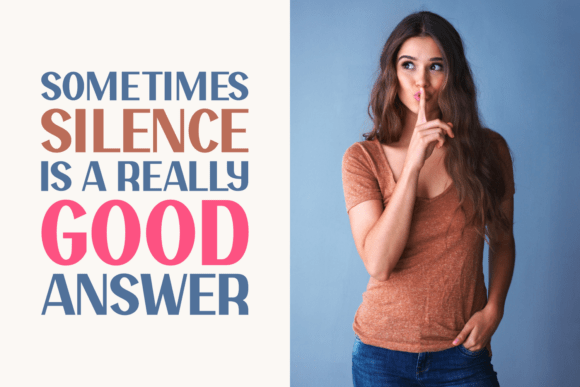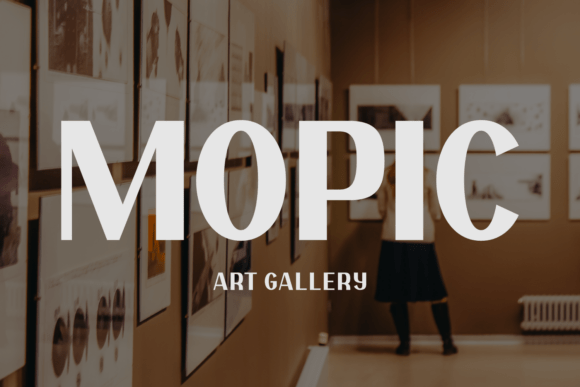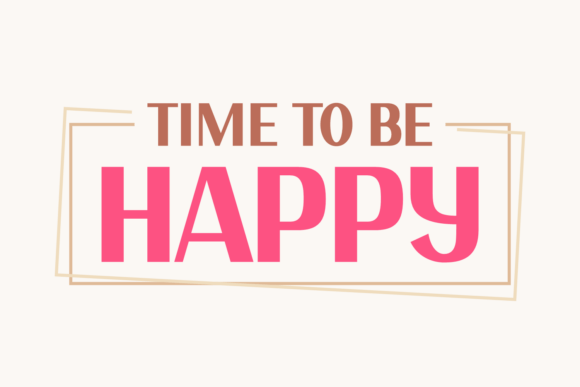
Introduction to Lucky Forever Font
As designers, we’ve all been there – staring at a blank canvas, waiting for the perfect font to bring our creative project to life. For many of us, that moment of inspiration is elusive, until we stumble upon the perfect typeface. For those in search of a high-quality design resource that elevates their work, the Lucky Forever Font is sure to be a game-changer.
With its striking interplay of bold and thin elements, this sans serif font is engineered to provide a seamless equilibrium between structural power and artistic grace. Whether you’re working on a high-end branding project, creating a poster, or designing a T-shirt, the Lucky Forever Font’s polished geometry and forward-thinking style make it a premier choice for designers who demand the best.
Not only does this versatile typeface adapt effortlessly to diverse design environments, but it’s also available for free download – making it an accessible design resource for creatives of all levels. Whether you’re working on a transparent background or a bold graphic, the Lucky Forever Font is sure to bring your message to life with absolute confidence.
Key Features of Lucky Forever Font
- High-quality design resource ideal for creative projects, offering a unique and eye-catching aesthetic.
- Features a modern and stylish design, perfect for logos, branding materials, and other creative applications.
- Designed with a clean and minimalist approach, making it an excellent choice for designers seeking a simple yet effective font.
Honest Review: Lucky Forever Font
I recently had the chance to work with the Lucky Forever Font, and I must say it’s been a delightful experience. As a designer, I’m always on the lookout for high-quality design resources that can elevate my creative projects.
One of the standout features of the Lucky Forever Font is its transparent background, which makes it incredibly versatile and easy to work with. ✨ I appreciate the fact that the font is available for free download, which is a huge plus for designers who are working on tight budgets.
- High-quality design with smooth lines and a charming feel
While the Lucky Forever Font is a great addition to any design arsenal, there are a few limitations to consider. ⚠️ For one, the font is only available in a few weights, which may limit its use in certain contexts. Additionally, the font may not be suitable for use in large blocks of text.
Overall, I’m impressed with the Lucky Forever Font and would highly recommend it to designers who are looking for a high-quality, easy-to-use font for their creative projects.
The Lucky Forever Font is a high-quality design resource perfect for your next creative project. This free download is ideal for designers and non-designers alike, offering a unique and stylish touch to any design.
Tips for Getting the Most Out of Lucky Forever Font
To get the most out of the Lucky Forever Font, use it on a transparent background to give your design a modern and sleek look. Experiment with different font sizes and colors to add depth and visual interest to your design.
The Lucky Forever Font is perfect for a variety of creative projects, including social media graphics, blog posts, and marketing materials. Its unique style and high-quality design make it a great choice for any project where you want to add a touch of elegance and sophistication.